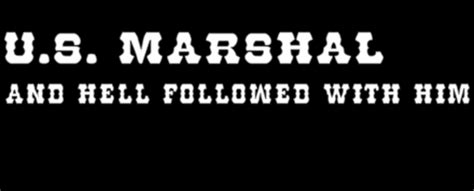
Discover The Official US Marshal Font
Discover the Official US Marshal Font
Guys, have you ever found yourself watching a crime drama, a documentary, or even just admiring the official seal of a federal agency, and wondered, “What font is that?” If you’ve ever pondered the US Marshal font , you’re definitely not alone! It’s a question that pops up surprisingly often for designers, history buffs, cosplay enthusiasts, and anyone simply captivated by the strong, authoritative aesthetic associated with one of America’s oldest and most respected law enforcement agencies. We’re talking about the United States Marshals Service , folks, an agency steeped in history, from chasing outlaws in the Old West to today’s critical roles in witness protection, fugitive apprehension, and judicial security. Their visual identity, including the typography they use, plays a crucial role in conveying their authority, professionalism, and enduring legacy. But what exactly is the official US Marshal font ? Is there a single, definitive answer, or is it a bit more complex than just picking “Times New Roman” from a dropdown menu? In this deep dive, we’re going to embark on a fascinating journey to uncover the truth behind the US Marshal font , explore its historical context, understand the design principles that guide federal branding, and even suggest some fantastic alternatives if you’re looking to capture that iconic look yourself. Get ready, because we’re about to explore the subtle yet powerful world of federal typography, unraveling the mystique around the US Marshals’ visual identity . Whether you’re a graphic designer seeking inspiration, a writer crafting a story, or just a curious mind, you’ll find plenty of valuable insights here. We’ll break down the elements that contribute to that instantly recognizable US Marshal aesthetic , discussing not just specific typefaces but also the overall design philosophy that makes their branding so impactful. So, buckle up, because we’re diving deep into fonts, history, and the unmistakable style of the US Marshals Service . It’s more than just letters on a page; it’s about tradition, authority, and the very essence of law enforcement communication.
The Hunt for the Authentic US Marshal Font
Alright, let’s get down to the nitty-gritty, guys: when we talk about the authentic US Marshal font , we’re often looking for a silver bullet, a single typeface that screams “federal authority.” But here’s a little secret for ya – it’s rarely that simple, especially with federal agencies like the United States Marshals Service that boast such a long and storied history. Unlike a modern corporation that might commission a bespoke font for all its branding needs, government entities often evolve their visual identity over decades, sometimes even centuries. This means there isn’t typically one single, universal US Marshal font that they’ve used consistently across every single document, badge, vehicle, or official communication since their inception in 1789. Instead, what we often see is a stylistic approach to typography that conveys certain traits: authority, tradition, gravitas, and trustworthiness . When you look at old US Marshal documents or historical photographs, you’ll see a variety of strong, legible serifs and sturdy sans-serifs, reflecting the popular typefaces of different eras. For instance, in earlier periods, you might find more classic serif fonts that were standard for official government paperwork, emphasizing legibility and formality. As printing technology advanced and design aesthetics shifted, so too did the fonts used.
The US Marshal Service’s branding today often incorporates elements that lean into a classical, almost monumental feel, especially for official seals and badges. Think about the iconic US Marshals Service seal : it often features blocky, all-caps serif lettering that projects an image of steadfastness and tradition. One of the most common fonts associated with this particular style, particularly for the words “UNITED STATES MARSHAL” or “U.S. MARSHALS SERVICE” on badges, seals, and some official documents, is often Trajan Pro . Now, Trajan Pro isn’t some secret government typeface; it’s a commercially available font designed by Carol Twombly for Adobe, and it’s heavily inspired by the monumental Roman square capitals found at the base of Trajan’s Column in Rome. It’s famous for its classical elegance, sturdy serifs, and all-caps design, making it a go-to choice for anything needing a sense of historical authority or grandiosity – think movie posters for epic historical films, university seals, and, yes, many government emblems. This font, or very close approximations, effectively captures that timeless, authoritative US Marshal aesthetic . However, it’s essential to remember that while Trajan might be prominent on seals, it’s not the font they’d use for the body text of a lengthy report or a website. For those purposes, legibility and modernity often take precedence, leading to the use of more common and readable typefaces like Arial, Helvetica, or other clear sans-serifs, which we’ll discuss a bit more later. The search for the US Marshal font is less about finding a single typeface and more about understanding the typographic principles that define their visual communication across different contexts and historical periods. It’s about that consistent vibe they give off, whether it’s on a badge, a vehicle, or an official proclamation. This nuanced approach helps them maintain a strong, unified image while adapting to practical design needs.
Unpacking the Visual Identity of the US Marshals
Okay, folks, let’s zoom out a bit from just the US Marshal font and look at the bigger picture: the entire visual identity of the US Marshals Service . Because, honestly, a font, no matter how cool or authoritative, is just one piece of a much larger puzzle that builds an agency’s public image. The importance of consistency in federal agencies simply cannot be overstated. When a government body like the US Marshals communicates with the public, with other agencies, or internally, every visual element needs to project an unwavering image of credibility, professionalism, and unwavering authority. This consistency isn’t just about looking good; it’s about fostering trust, ensuring clarity, and preventing misrepresentation. Think about it: if every US Marshal document or piece of equipment looked wildly different, it would erode confidence and potentially lead to confusion. That’s why there are often brand guidelines – even if they’re not always public-facing – that dictate everything from logo usage and color palettes to, yes, specific fonts or font families that should be employed.
When we talk about the visual identity of the US Marshals , we’re encompassing several key stylistic elements . Beyond the specific US Marshal font choices, you’ll consistently see a few things. First, there’s the color palette: typically deep blues (often navy), crisp whites, and sometimes metallic golds or silvers, especially on badges and seals. These colors aren’t arbitrary; they evoke patriotism, strength, and integrity. Then there’s the use of seals and emblems. The US Marshals Service seal , for example, is a powerful visual anchor, usually featuring an eagle, stars, and stripes, surrounded by the agency’s name in a stately, all-caps serif font – again, often something very much like Trajan Pro or a similarly robust serif. This seal is frequently seen on official documents, vehicles, uniforms, and digital communications, serving as an instant marker of authenticity. In terms of overall graphic design , there’s a strong emphasis on clean lines, balanced layouts, and a generally conservative aesthetic that prioritizes clarity and gravitas over flashy or trendy design elements. This approach ensures that the message is always clear, respectful, and commands the appropriate level of attention and respect.
Now, let’s talk more about fonts that look like the US Marshal font or contribute to that overall feel. While Trajan Pro might be the poster child for the “UNITED STATES MARSHAL” on seals, it’s not the only player. Other classic serif fonts, particularly those with a strong, traditional feel, are often used. Think of fonts like Copperplate Gothic , which isn’t a true serif (it’s technically a glyphic serif or flared sans-serif), but its all-caps, strong, and highly legible appearance makes it another popular choice for formal headings, engravings, and official-looking text, perfectly aligning with that US Marshal aesthetic . You might also see other sturdy serif fonts that convey a similar sense of tradition and authority, often reminiscent of old-style typefaces or those used in legal documents. These include typefaces that are commonly found in official government communications, providing a sense of established order and reliability. For more contemporary applications, particularly in body text for reports or on websites where readability is paramount, the US Marshals and other federal agencies often default to clear, unambiguous sans-serifs. We’re talking about typefaces like Arial , Helvetica , Roboto , or even Gotham -like fonts for a more modern, yet still professional and authoritative, touch. These sans-serifs provide excellent readability on screens and in print for longer blocks of text, ensuring that important information is easily digestible and accessible to all. The blend of these classical and modern typefaces, combined with their distinctive color schemes and iconic seals, is what truly defines the visual identity of the US Marshals , creating that unmistakable sense of federal presence and historical depth. It’s a carefully curated visual language, guys, designed to communicate power, tradition, and unwavering commitment to justice.
Recreating the US Marshal Look : Font Alternatives and Design Tips
Alright, my design-savvy friends and curious enthusiasts, if you’re looking to recreate the US Marshal look for a project – maybe it’s a prop for a film, a costume, a fan-art piece, or even just a design concept that needs that federal gravitas – you’ve got some fantastic font suggestions and design tips coming your way. As we’ve discussed, there isn’t one single, magic US Marshal font , but rather a stylistic approach. The good news is, you can absolutely capture that US Marshal aesthetic without needing access to some top-secret government typeface. It’s all about making smart choices that evoke the same feelings of authority, history, and professionalism.
Let’s dive into some specific font suggestions that really nail the US Marshal feel . For that iconic, official “UNITED STATES MARSHAL” text often seen on badges, seals, and official engravings, your absolute best bet is Trajan Pro . This font, with its distinctive all-caps, strong serifs, and classical Roman roots, is practically the gold standard for conveying governmental authority and historical weight. Its dignified presence makes it ideal for emblems and titles where maximum impact and traditional respect are needed. If Trajan Pro isn’t available or you’re looking for a slightly different vibe that still screams official, consider Copperplate Gothic . While technically a flared sans-serif, its all-caps, small-cap variants, and robust letterforms make it incredibly effective for headings, formal invitations, and any text that needs to appear engraved or printed with significant gravitas. It has that old-school, institutional feel that aligns perfectly with a venerable agency. Other strong serif fonts that can work well include classic choices like Garamond Premier Pro , Minion Pro , or even a well-executed version of Didot or Bodoni if you’re aiming for extreme elegance and formality, though these might lean a bit more “luxury brand” than “federal law enforcement” if not used carefully. The key here is to choose serif fonts with sturdy, confident serifs , rather than overly delicate ones, to maintain that sense of strength and unwavering reliability that the US Marshals project.
Now, for body text or more modern applications where clarity and readability are paramount, you’ll want to pivot to sturdy, professional sans-serifs. Think about fonts like Arial , Helvetica Neue , Roboto , Open Sans , or Lato . These are workhorse fonts – clean, legible, and unobtrusive, allowing the content to take center stage. They project a modern efficiency without being overly casual, making them perfect for official reports, websites, or any longer form of communication where ease of reading is crucial. If you want something a bit more contemporary and structured, fonts like Montserrat or a carefully chosen Gotham alternative can also provide that solid, no-nonsense governmental look often seen in more modern federal communications and websites. The trick to using these fonts effectively is not just picking one, but understanding how they work together. You’ll often see a blend: a grand, classical serif for the main heading or seal text, paired with a clean, readable sans-serif for the supporting information. This pairing of fonts creates visual interest while maintaining consistency in tone and ensuring both gravitas and clarity are achieved.
Beyond the typefaces themselves, remember the broader design principles . Color schemes are crucial: deep navy blues, crisp whites, and metallic golds or silvers are your go-to palette to evoke patriotism and authority. Use these colors thoughtfully, perhaps with the gold for accents or key elements to signify importance. The overall layout should be clean, balanced, and free from clutter. Iconic imagery , like an eagle, stars, or a shield, can instantly tie your design back to federal symbolism, but ensure these are used tastefully and don’t overwhelm the design. Above all else, emphasize readability and professionalism . Avoid overly ornate or whimsical fonts, busy backgrounds, or cluttered layouts. The goal is to convey strength, reliability, and tradition, much like the US Marshals Service itself. By carefully selecting your fonts and applying these design tips, you can skillfully emulate the look and capture the unmistakable spirit of the US Marshals in your own projects, ensuring your creations radiate that same sense of official gravity. It’s truly amazing what a few thoughtful font choices and design considerations can achieve, guys!
Alright, guys, what a journey! We started by simply asking about the US Marshal font , and we ended up diving deep into federal branding, historical context, and the subtle art of conveying authority through design. While there isn’t a single, secret US Marshal font hiding in some government vault, we’ve learned that the United States Marshals Service effectively uses a blend of classic, authoritative serifs like Trajan Pro for their iconic seals and badges, paired with clean, highly readable sans-serifs for everyday communications. This strategic approach ensures they project a consistent image of tradition, professionalism, and unwavering authority. Remember, recreating this look is an exciting creative endeavor, but always be mindful of legal considerations and respect the official branding guidelines to avoid any misrepresentation. By understanding these principles, you can skillfully capture that unmistakable US Marshal aesthetic in your own projects. Keep exploring, keep designing, and keep appreciating the power of good typography!